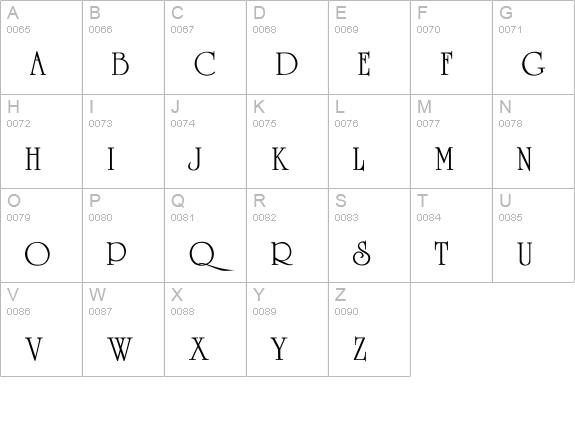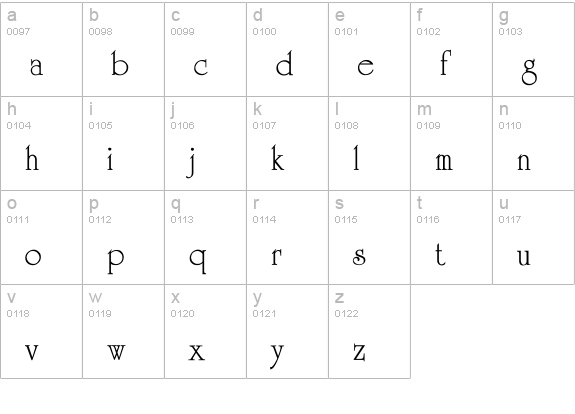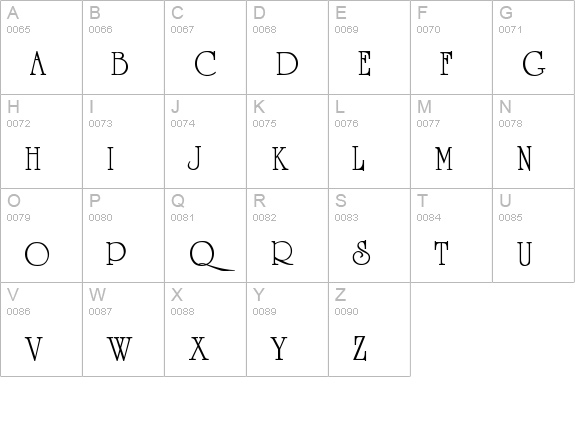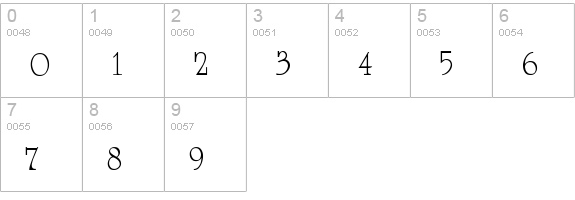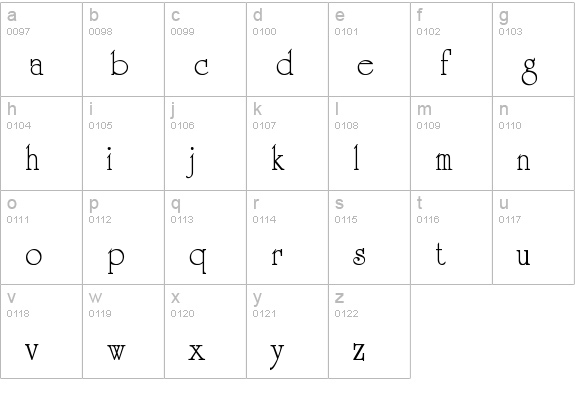
Uniroman is a stunning font that combines elegance and modernity, making it the perfect choice for any design project. Its clean lines and sleek curves give it a unique and sophisticated look that will instantly elevate your designs. This versatile font is suitable for a wide range of applications, from logos and branding to headlines and body text. Its legibility ensures that your message will be conveyed with clarity and impact, while its stylish appearance adds a touch of sophistication and professionalism. What sets Uniroman apart is not only its impeccable design, but also the fact that it is free. Yes, you read that right – this amazing font is freely available to download at FontsMarket.com. Whether you're a professional designer looking to add a new font to your collection or a student working on a school project, you can access Uniroman without any cost. Downloading Uniroman from FontsMarket.com is quick and easy. Simply visit the website, search for Uniroman, and click the download button. Within seconds, you'll have this fantastic font at your fingertips, ready to enhance your designs and captivate your audience. Don't miss out on the opportunity to elevate your designs with Uniroman. Download this free font today and experience the perfect combination of elegance and modernity.